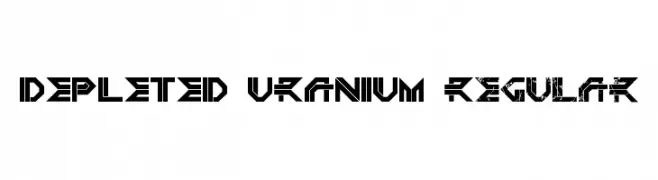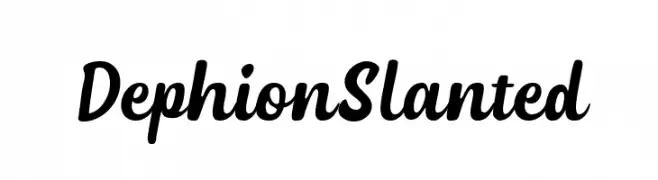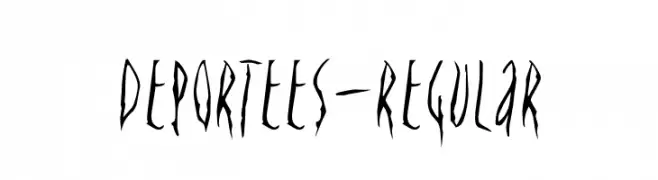
A bold, modern font with a geometric and condensed style.
A bold, italicized font with a modern, dynamic style and high contrast.
A bold, slanted font with a dynamic and flowing script-like style.
A bold, playful font with a unique dotted texture, ideal for eye-catching designs.
A bold, geometric font with a futuristic and industrial design.
A jagged, angular font with sharp strokes and dynamic energy.
A sharp, angular font with a jagged, thorn-like appearance.
A bold, geometric font with a three-dimensional, layered effect.
A bold, geometric font with a modern, industrial aesthetic.